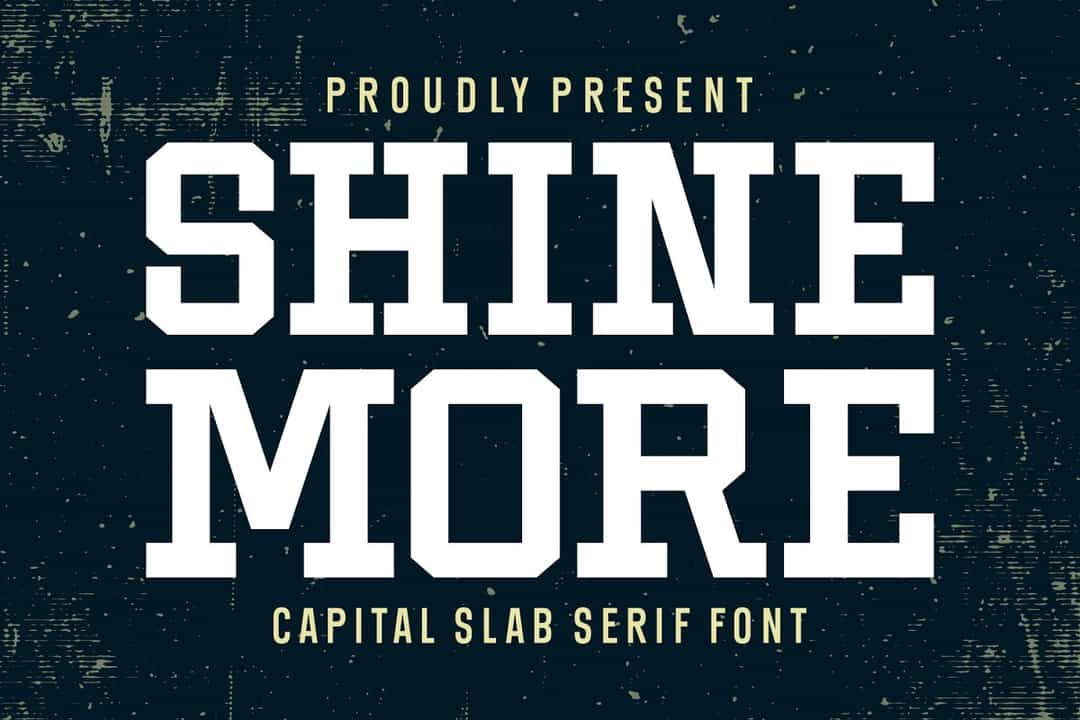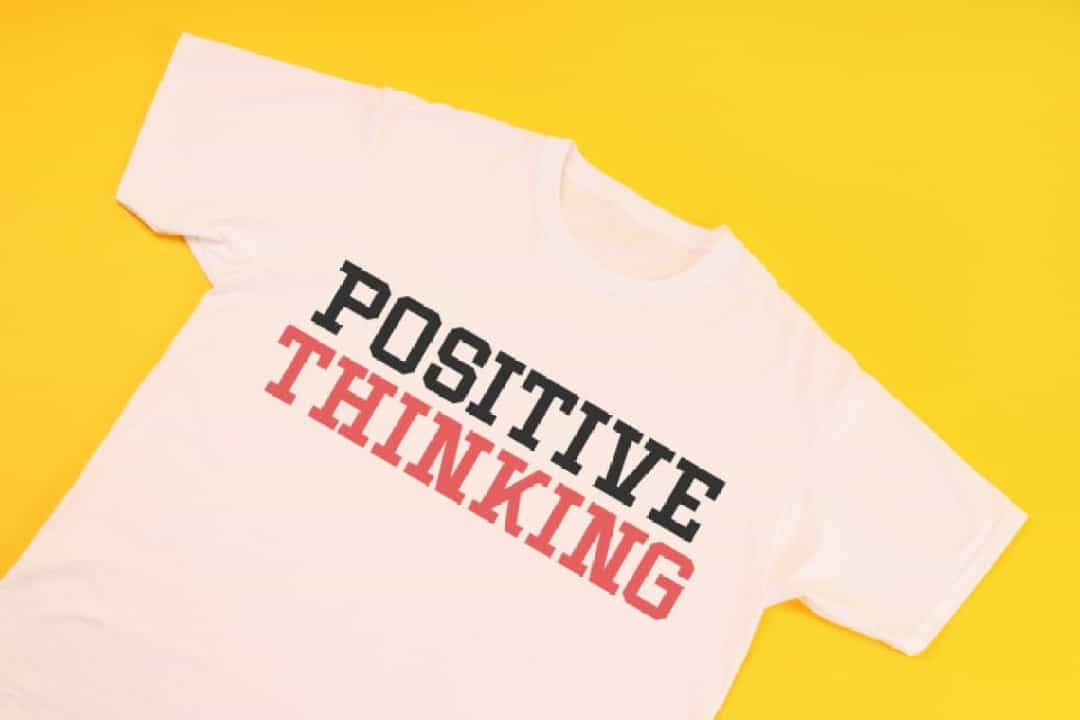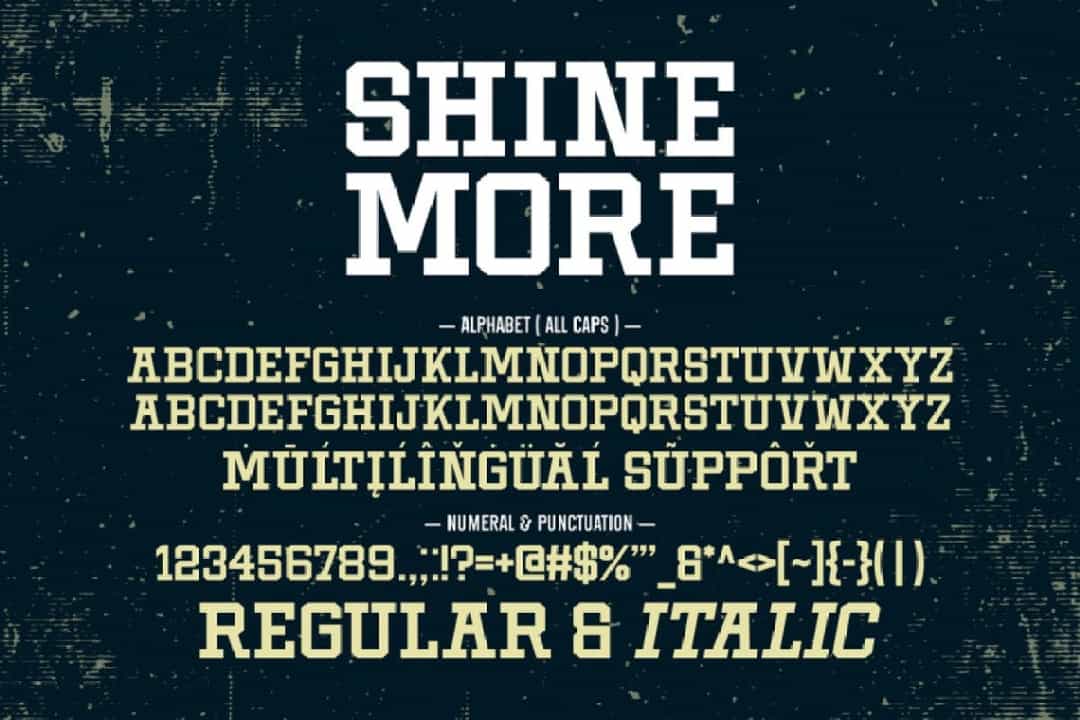
Shine Moreis an appealing retros slab serif all caps font created and designed by Jasm 7NTypes, boasting bold strokes and lively characters as well as some ligatures and alternate fonts. Perfect for any subject matter or purpose imaginable, this font makes any font more eye-catching in your library!